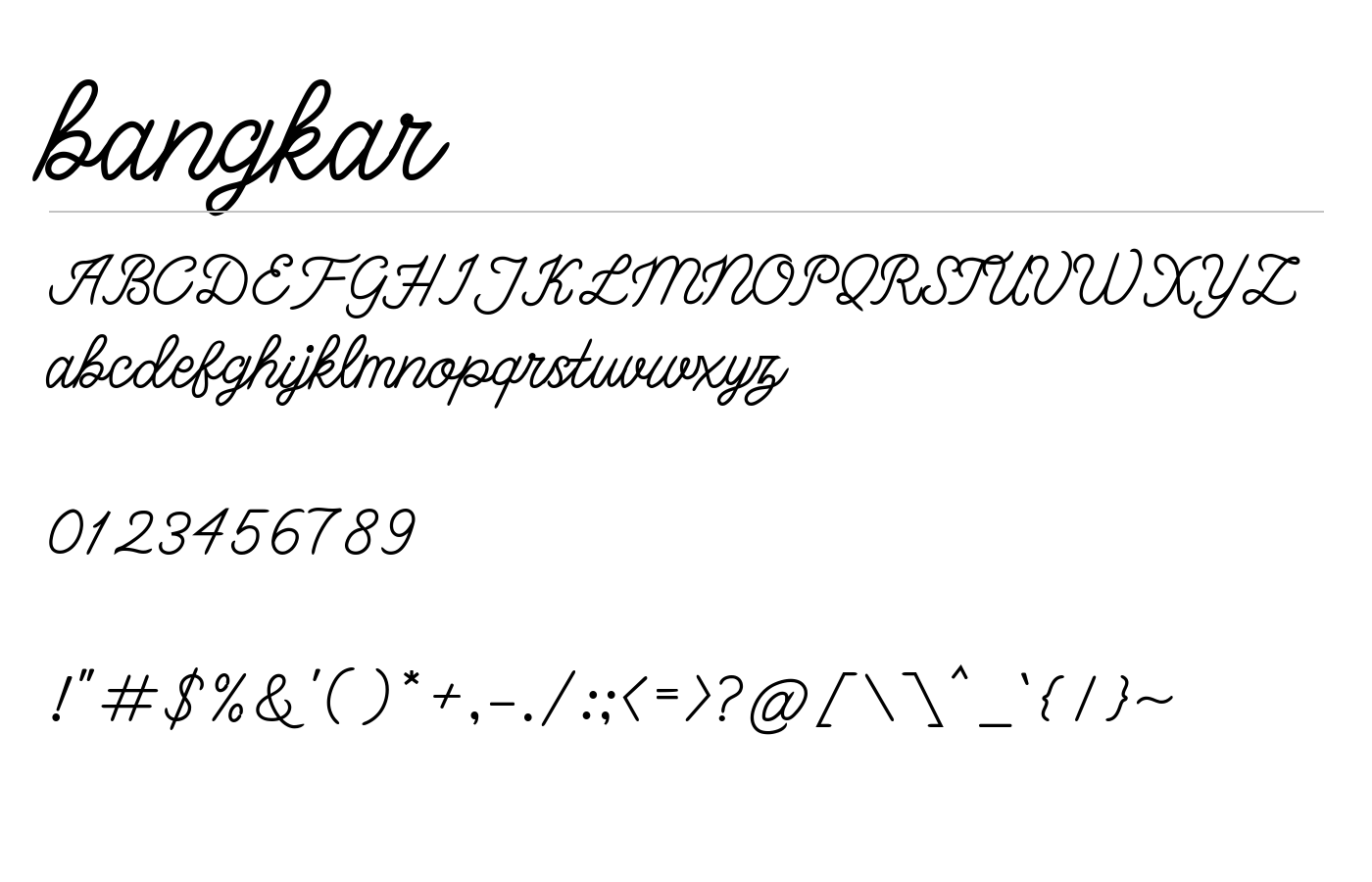
Bangkar is a delicate, elegant script font with a light weight and smooth, flowing strokes that evoke a handwritten feel. Its refined letterforms and graceful curves make it perfect for invitations, branding, and editorial projects that want to convey sophistication and charm. This font works best in contexts that require a personal, stylish touch without overwhelming the design.